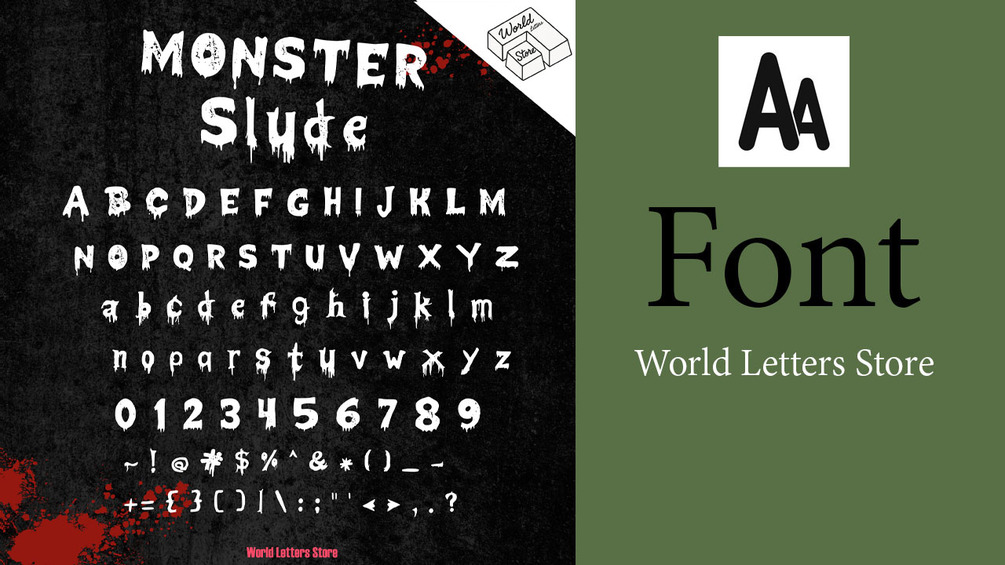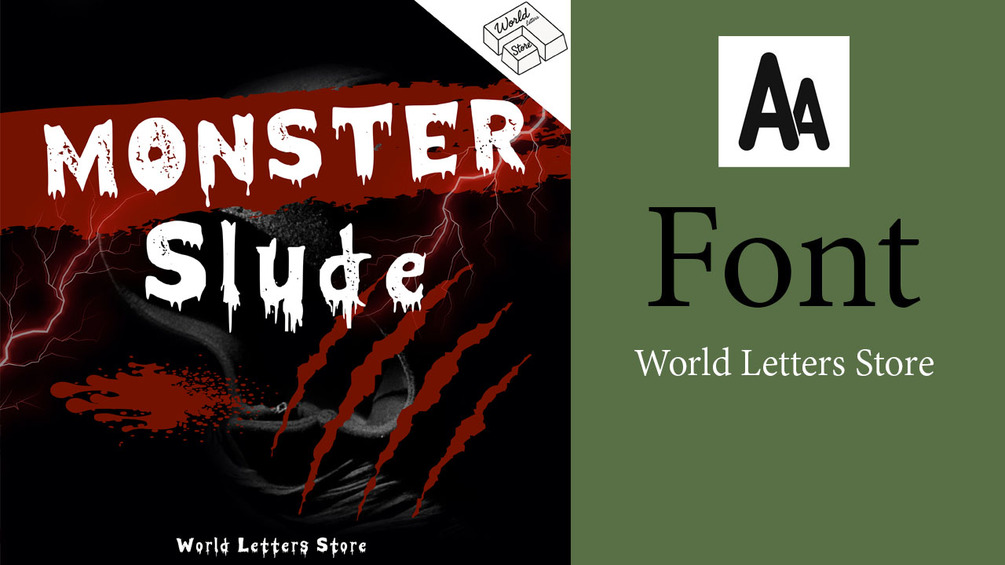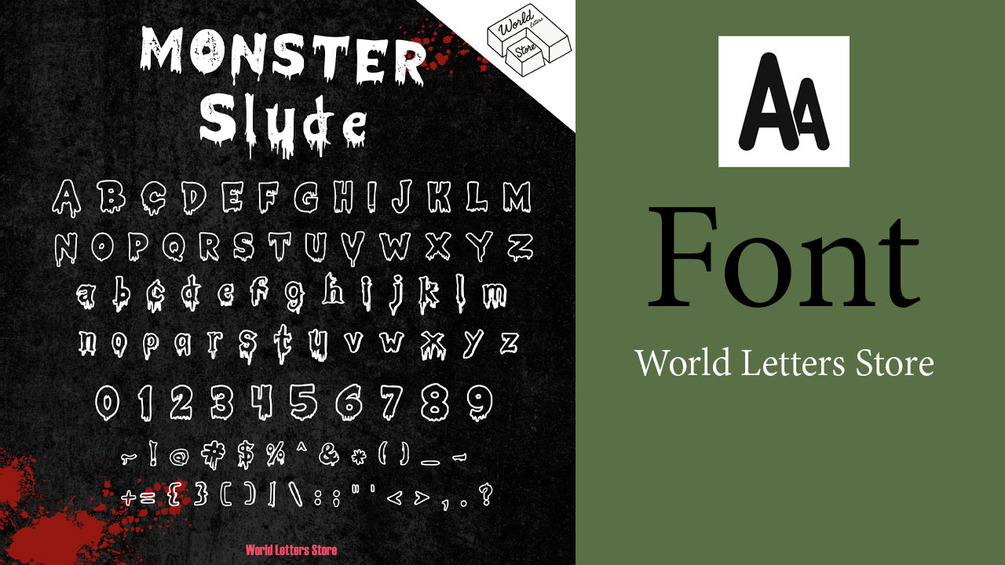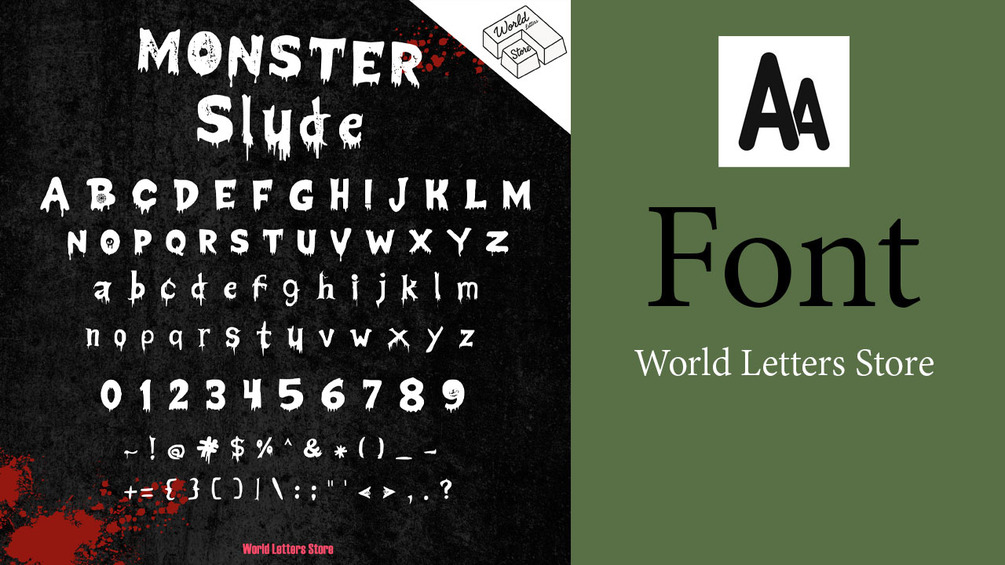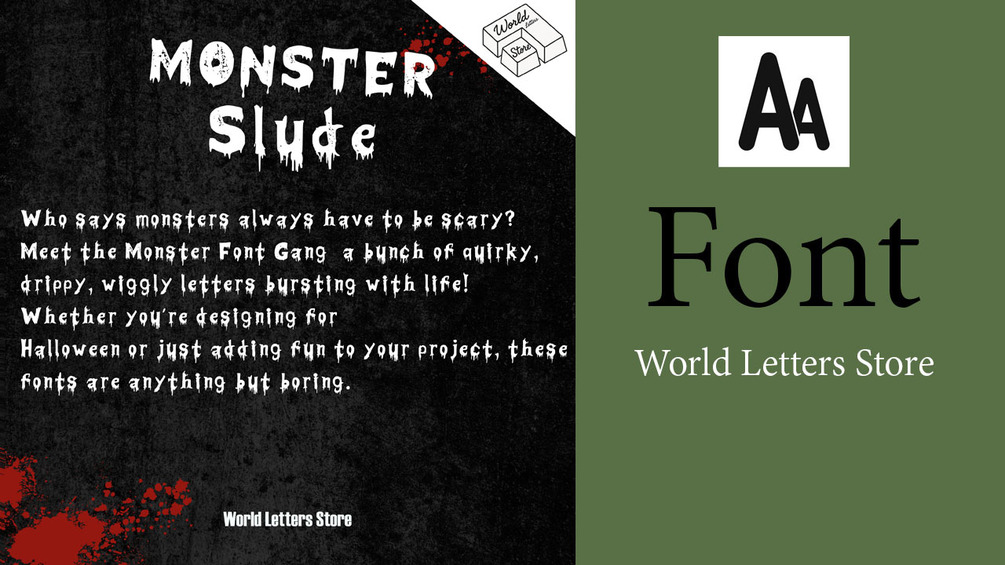
Monster Font, Halloween Fonts, Scary Mystery Fonts OTF, TTF Fonts for Procreate Computer
Perfect for planners, logos, stickers, quotes, and digital products.